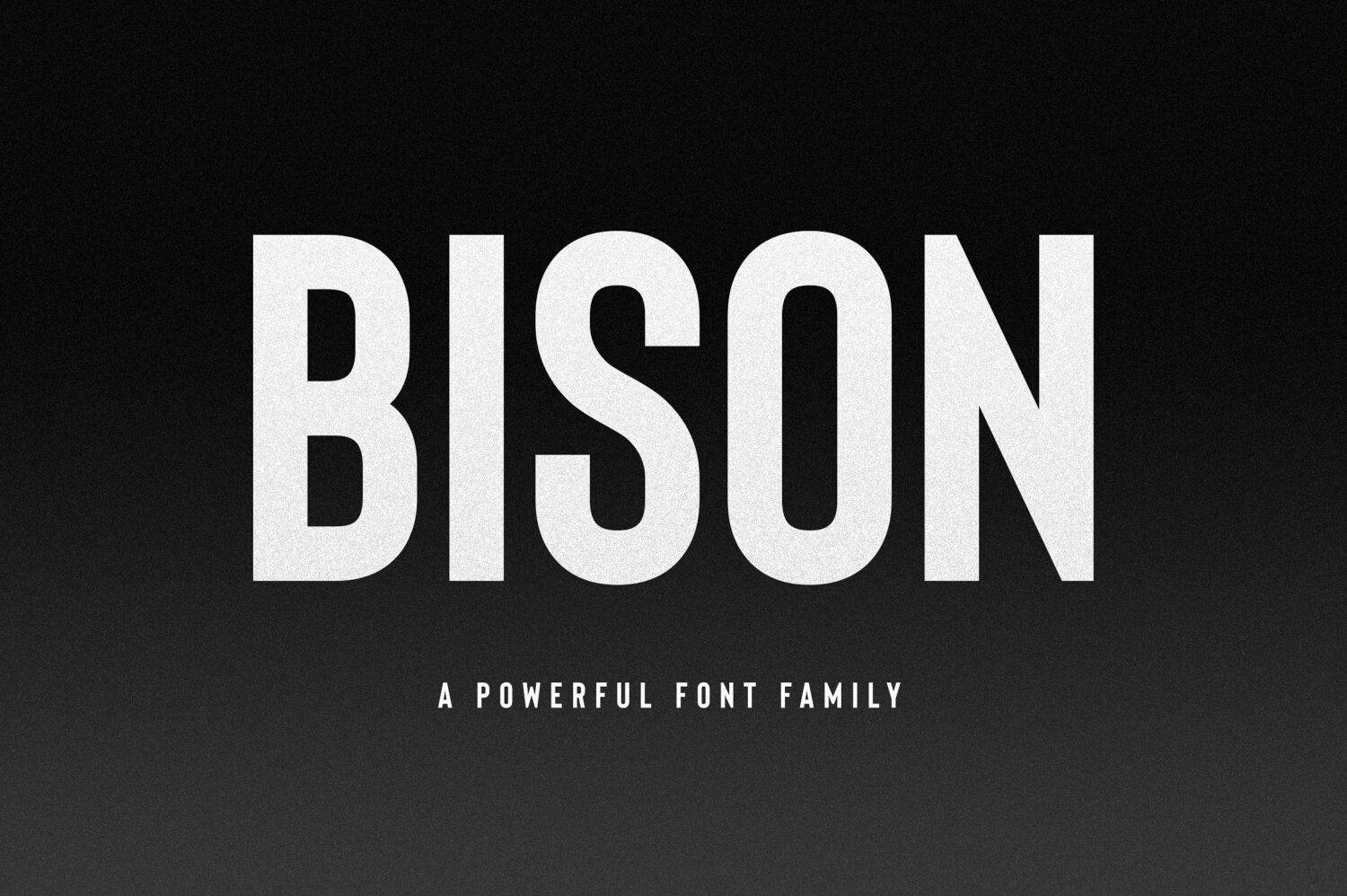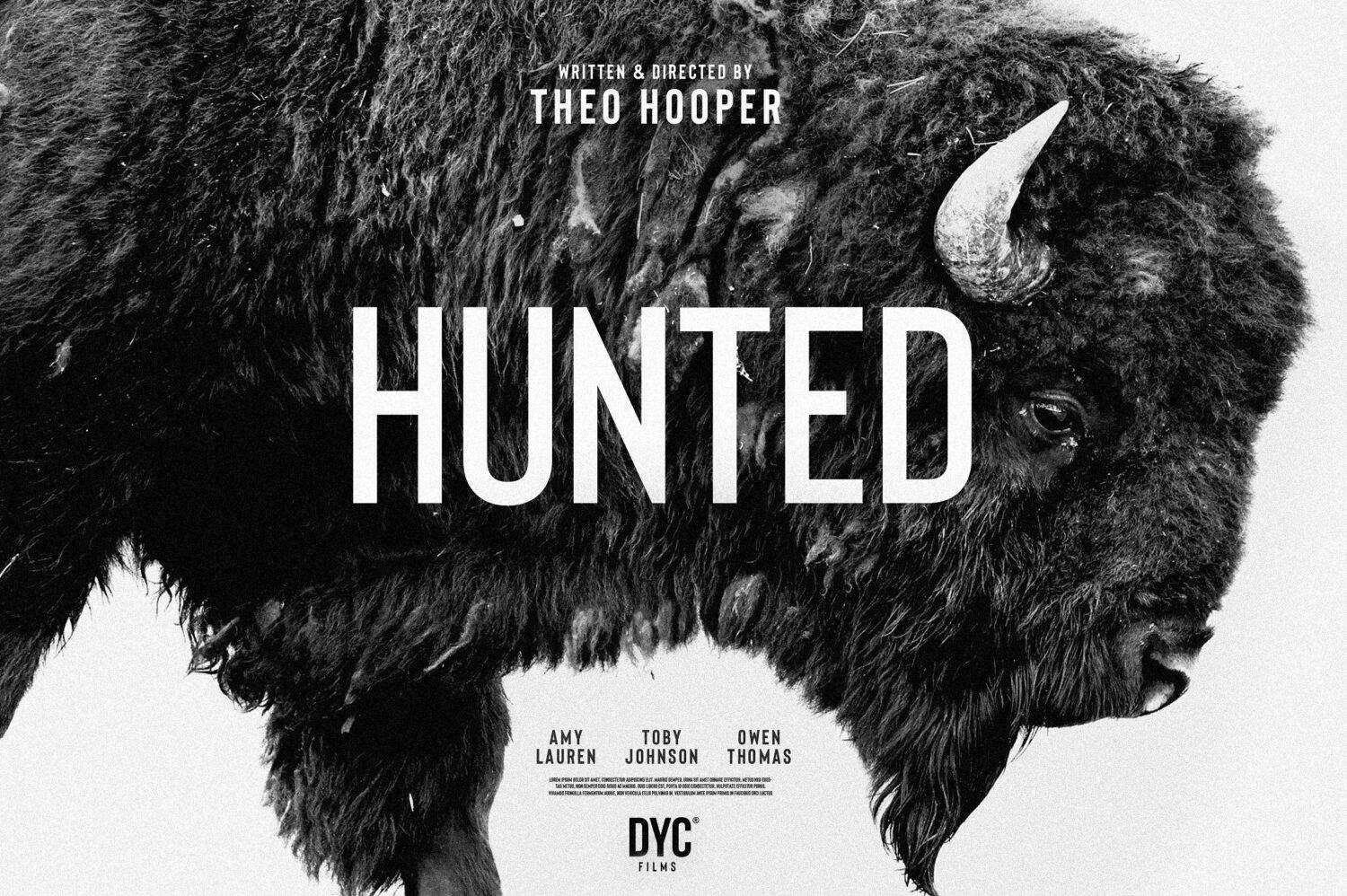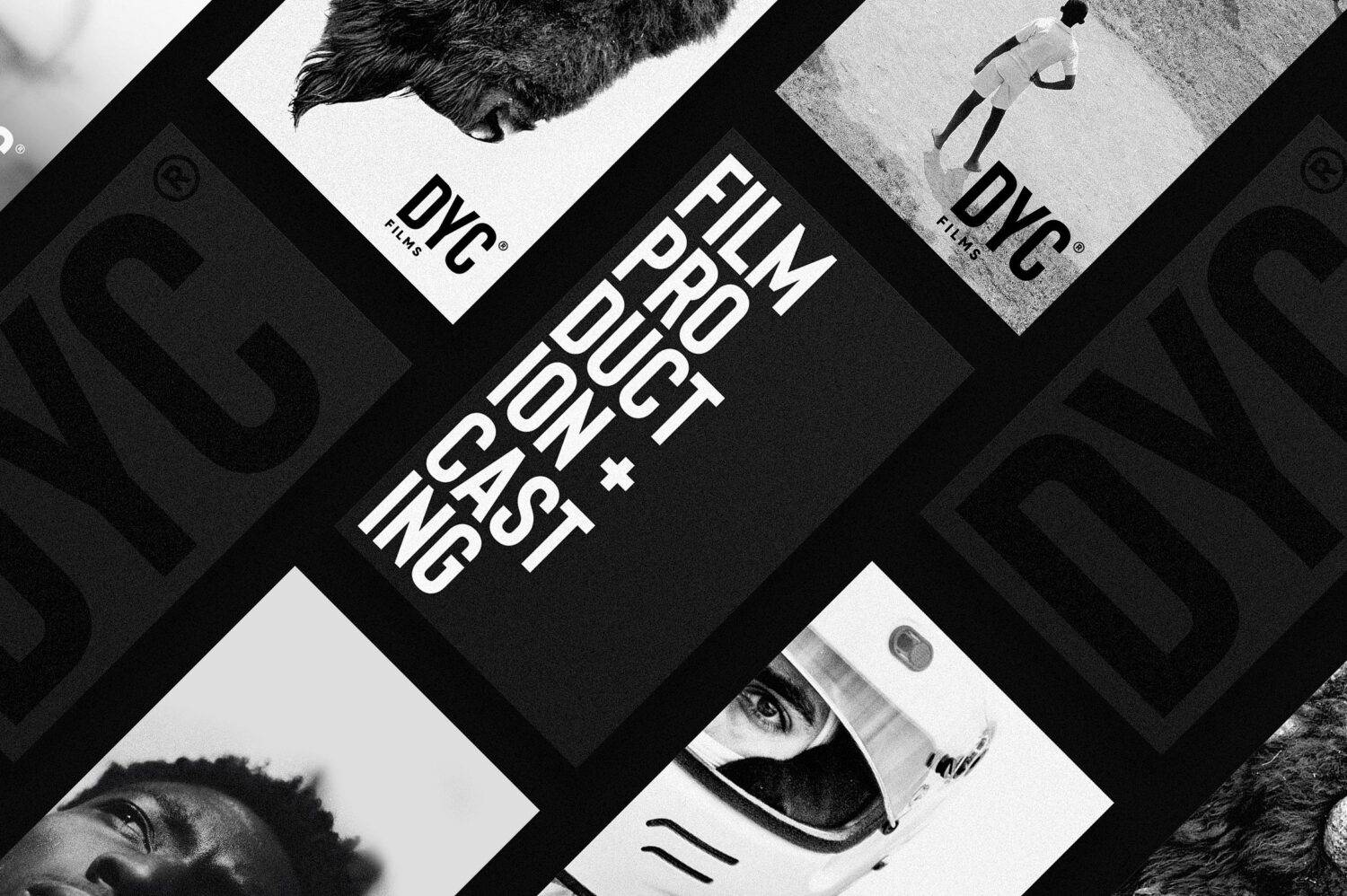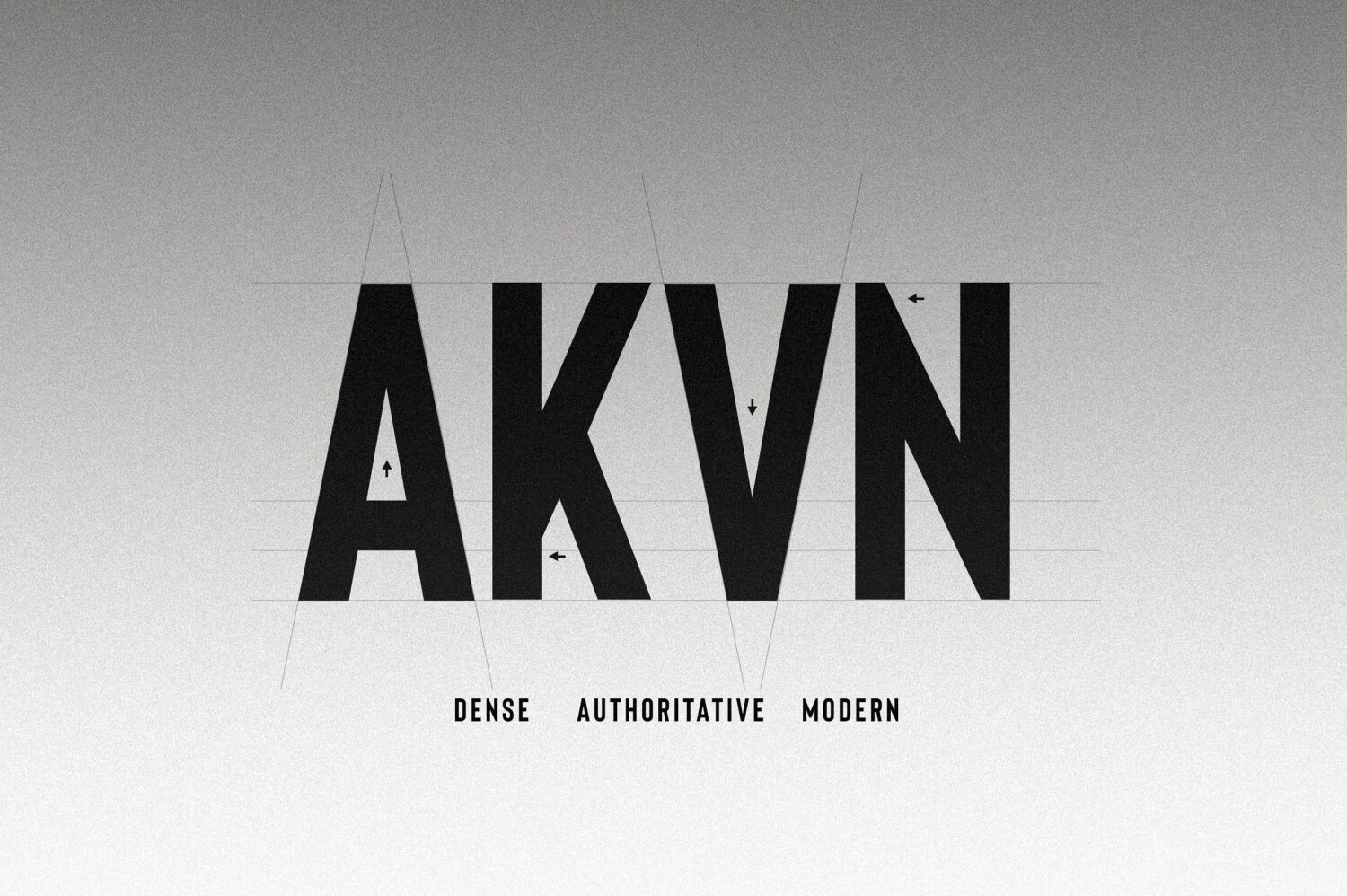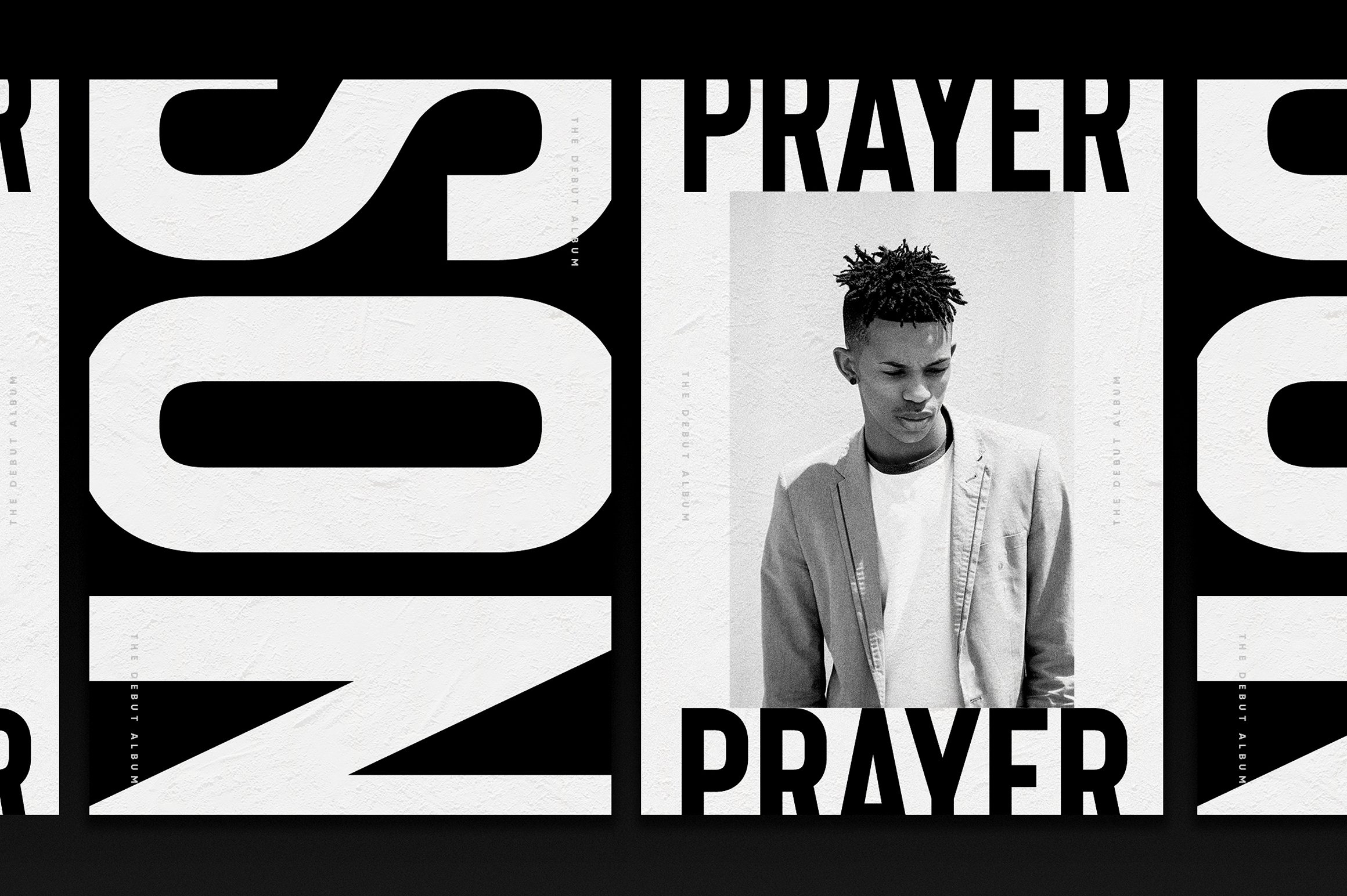
Bison is a bold, condensed sans serif typeface with a strong, modern presence and clean geometric lines. Its high x-height and tight letter spacing create a compact, impactful look that works well for headlines, logos, and branding that needs a confident, contemporary feel. The font’s straightforward shapes and uniform weight make it versatile for projects that require a striking yet simple design.
Bison Font Family
About Bison Font Family
| Font family | Bison Font Family |
| Designer | Ellen Luff |